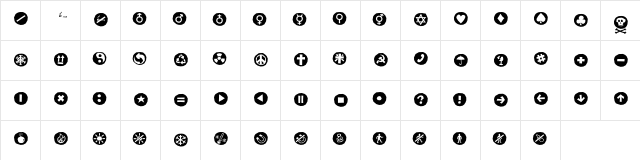
AleSignsBlackLL Regular
Design Context for AleSignsBlackLL Typeface
AleSignsBlackLL is a composed and adaptable typeface that performs quietly and consistently across a wide range of design contexts.